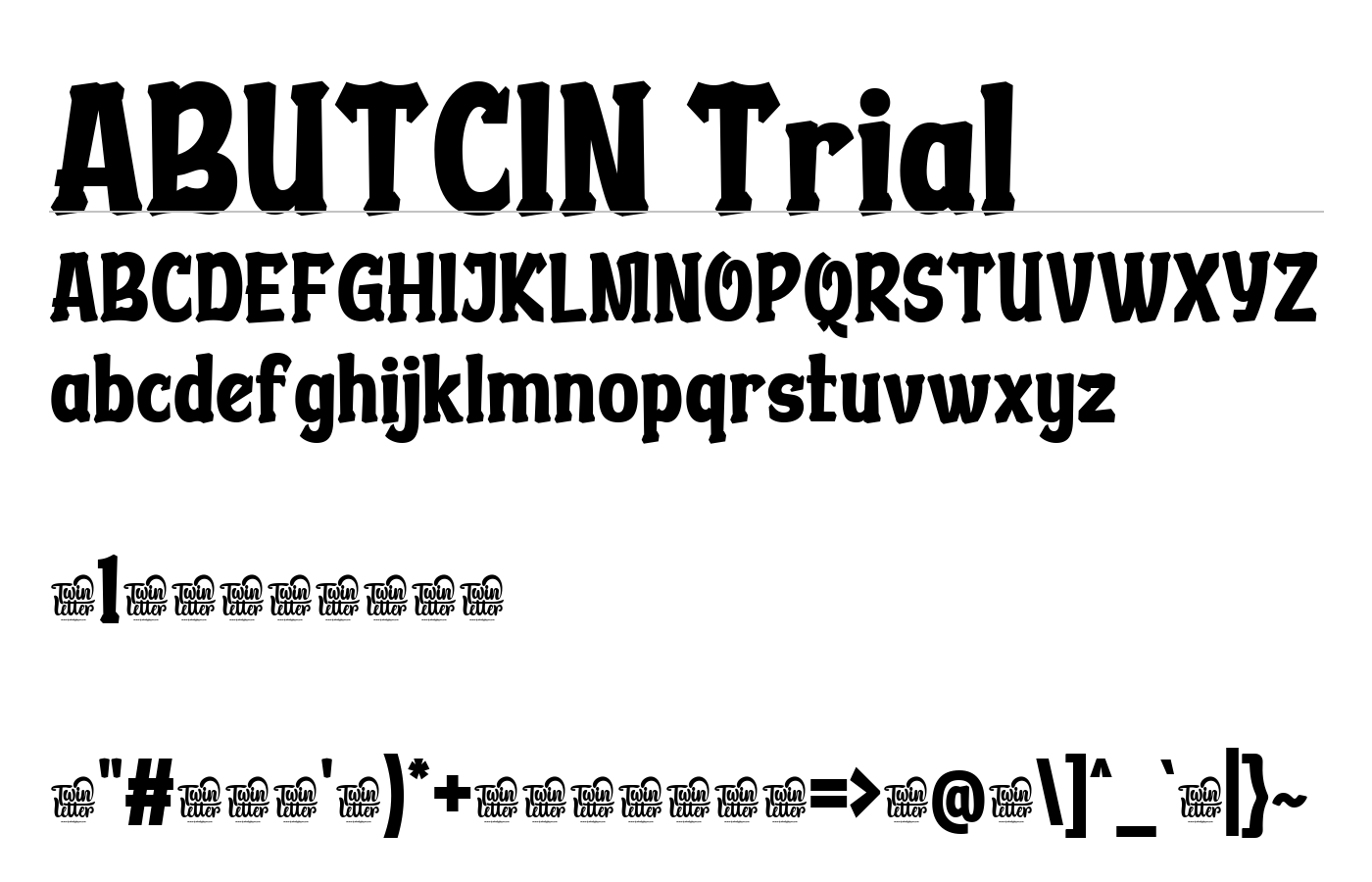
ABUTCIN Trial is a bold, playful serif font with a strong, slightly condensed structure and sharp-edged serifs that give it a distinctive, vintage charm. Its irregular, quirky letterforms and high contrast strokes make it ideal for eye-catching headlines, posters, and branding that seek a fun yet confident personality. This font works well for creative projects where a lively, retro-inspired style is desired to stand out and convey character.
ABUTCIN Trial Font
About ABUTCIN Trial Font